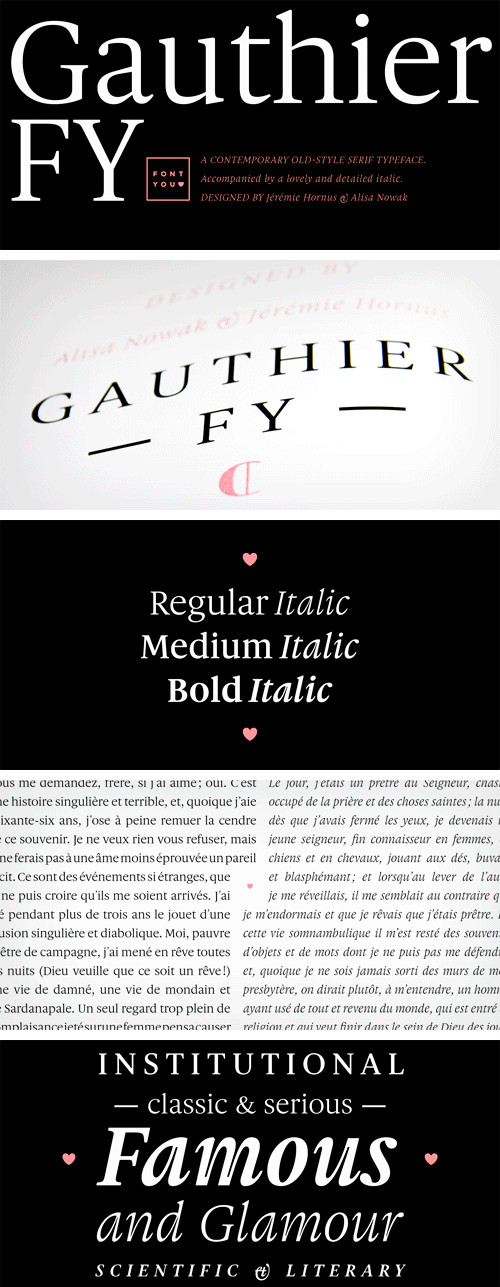
Gauthier FY Font
Inspired by Renaissance typefaces, Gauthier FY is a contemporary old-style serif typeface with big x-heights and quite small caps. Accompanied by a lovely and detailed italic – inspired by artworks from the punchcutter Granjon – Gauthier FY is perfect for any text design.